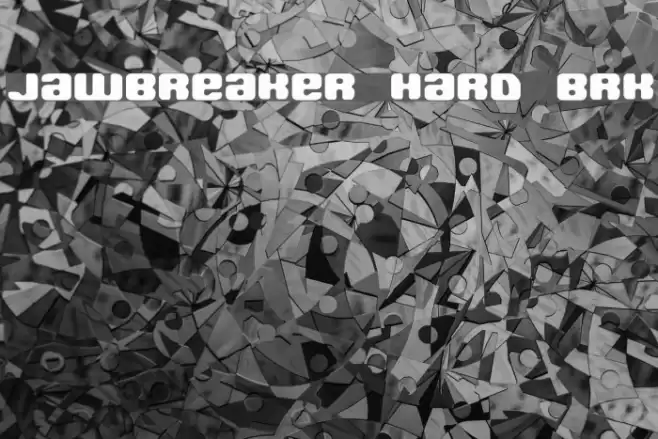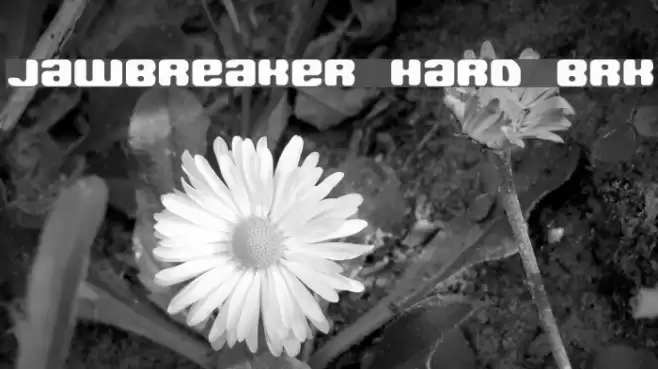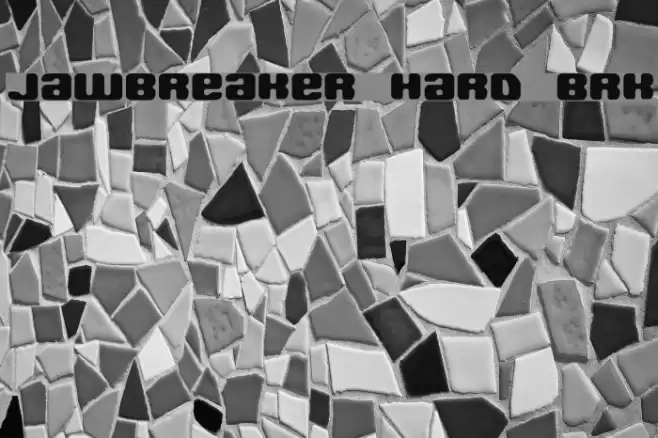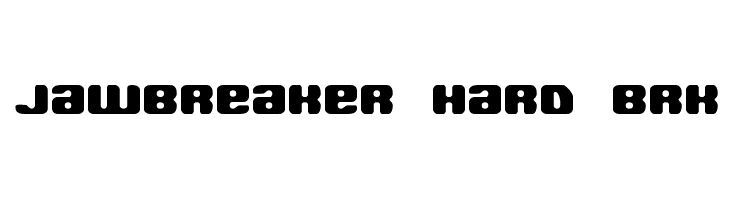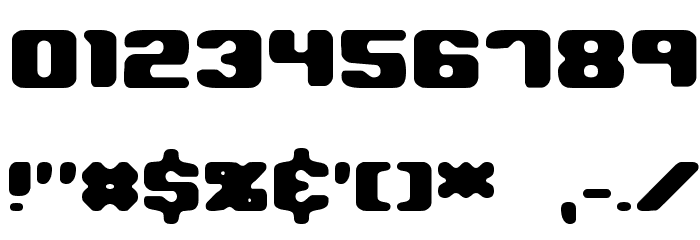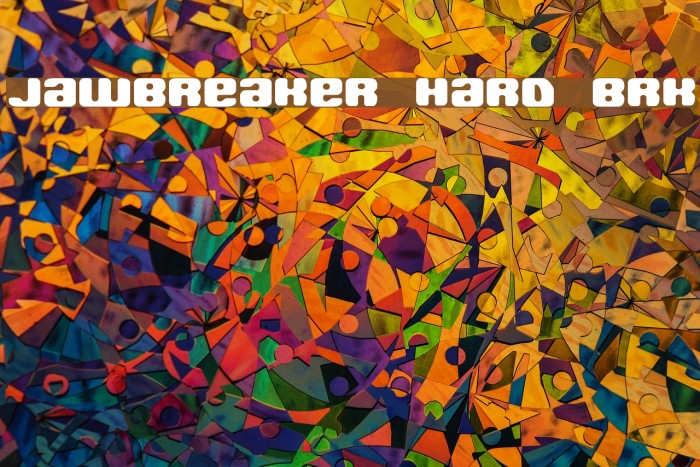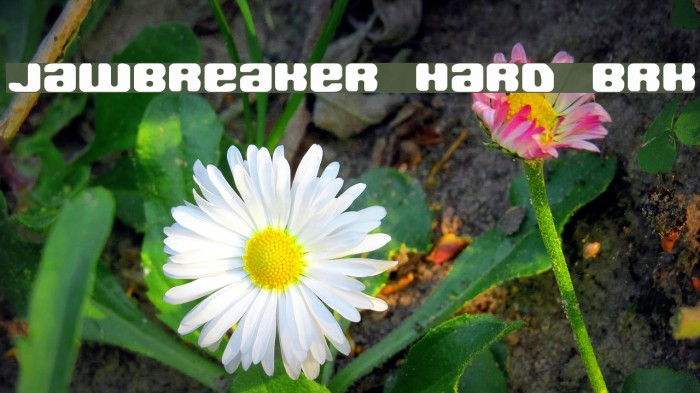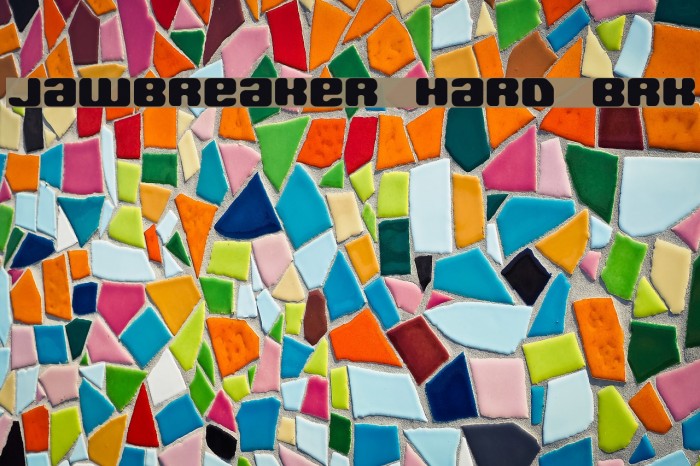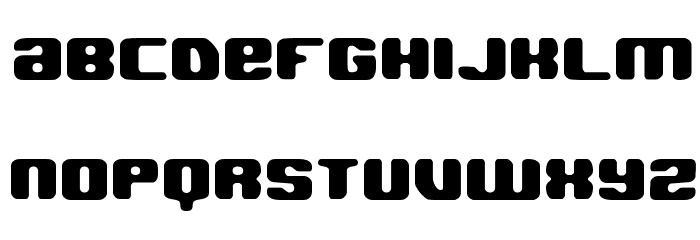
Jawbreaker Hard BRK Font
Jawbreaker Hard BRK Description
This bold and robust font features a unique, chunky design with rounded edges and a strong presence. The characters are evenly spaced, providing a balanced and consistent look. The uppercase and lowercase letters maintain a uniform style, with the lowercase slightly smaller but equally impactful. Numbers and special characters follow the same bold and rounded aesthetic, making them stand out. This font is perfect for projects that require a strong visual impact, such as posters, headlines, or branding materials. Its distinct style ensures that any text will capture attention and convey a sense of modernity and strength.
A bold, rounded font with a strong, impactful design from Military fonts.
- Proposed Projects: Ideal for posters, headlines, branding, and any project needing a bold statement.